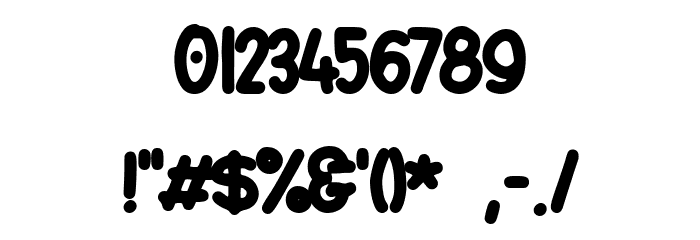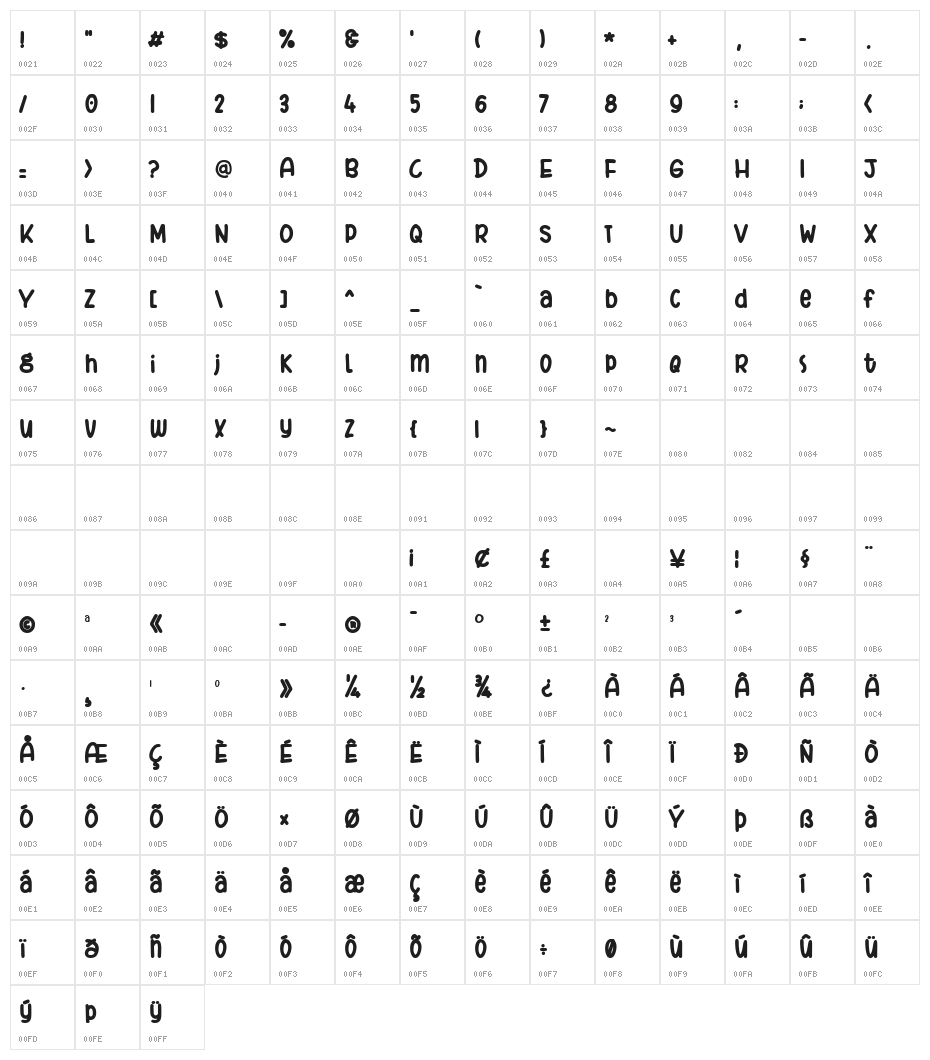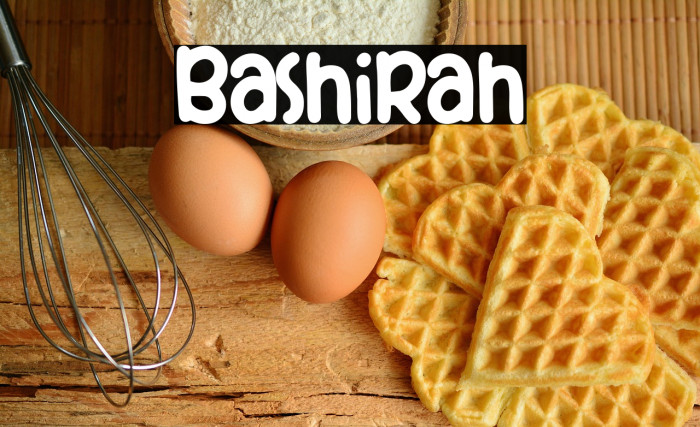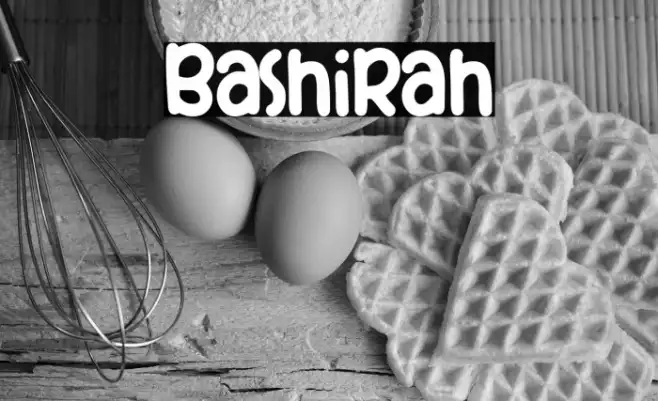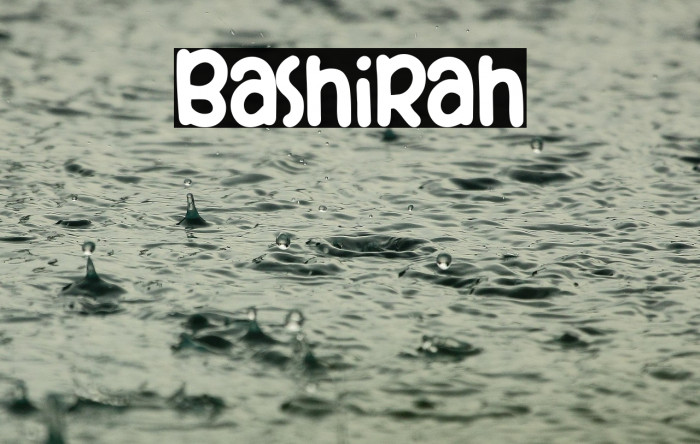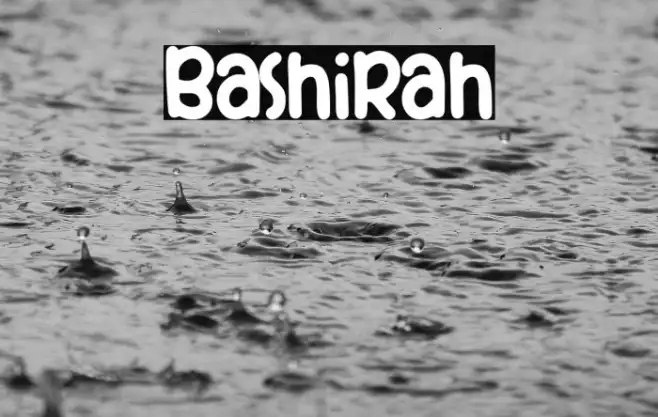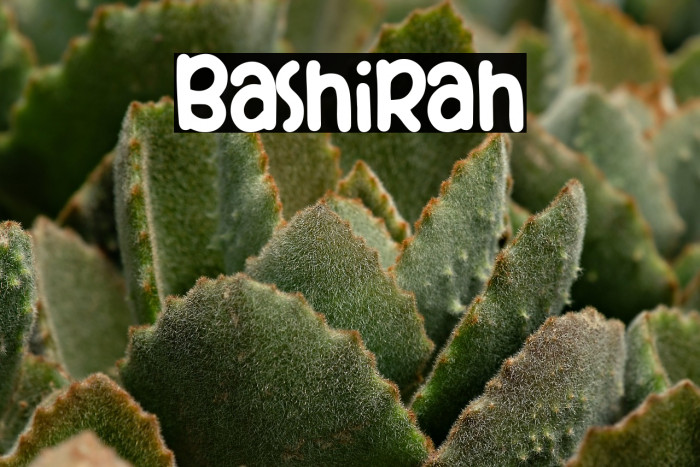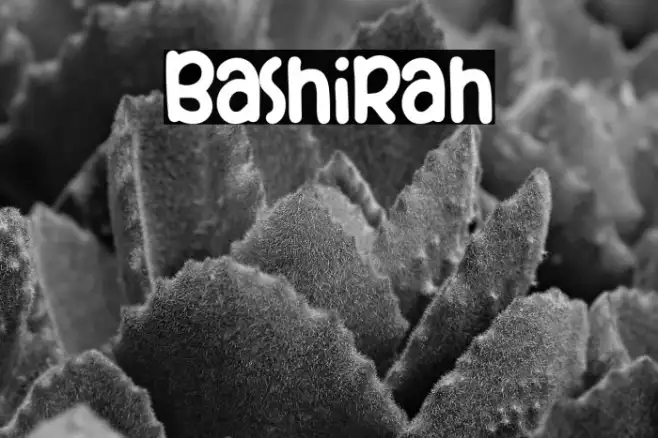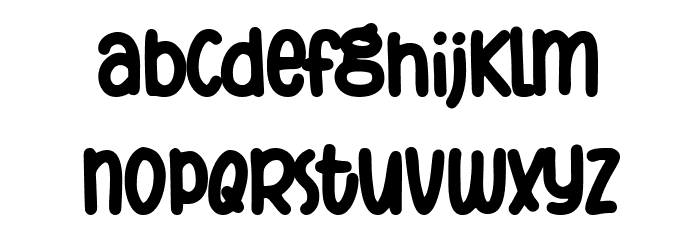
Bashirah Font
Bashirah Description
This playful and bold font features rounded, thick strokes that give it a friendly and approachable appearance. The characters are slightly irregular, adding a whimsical touch that makes it stand out. The uppercase and lowercase letters maintain a consistent style, with smooth curves and a uniform thickness throughout. The numbers and special characters are designed to match the overall aesthetic, ensuring a cohesive look across all text elements. This font is perfect for projects that require a fun and informal vibe, such as children's books, party invitations, or playful branding materials.
| Proposed Projects | Ideal for children's books, party invitations, playful branding, and informal designs. |